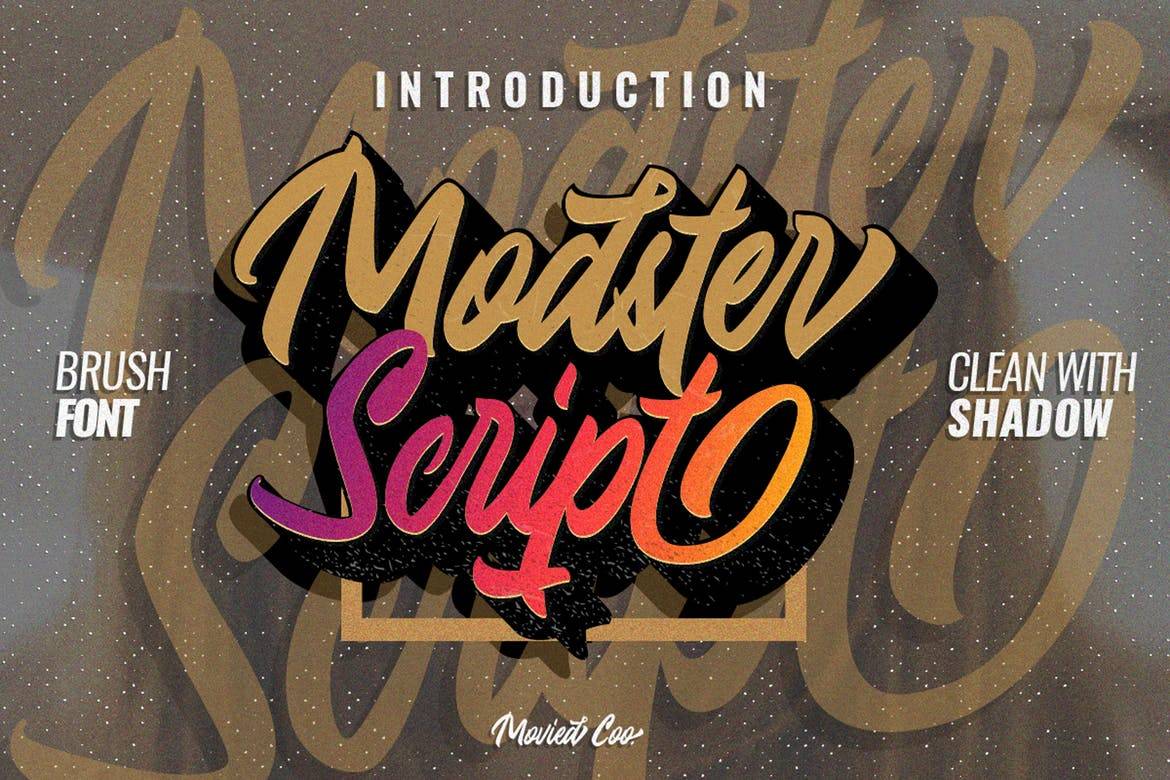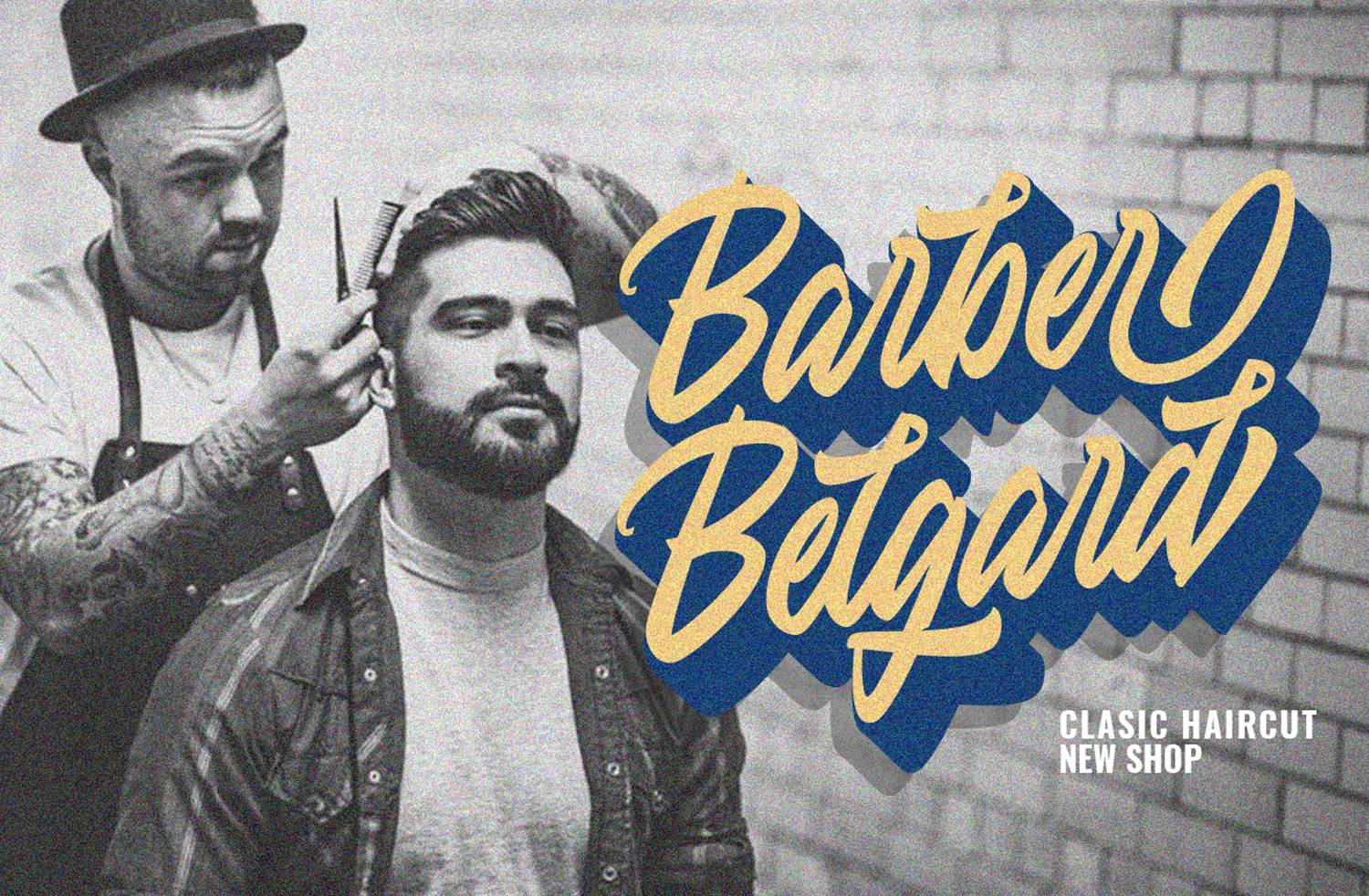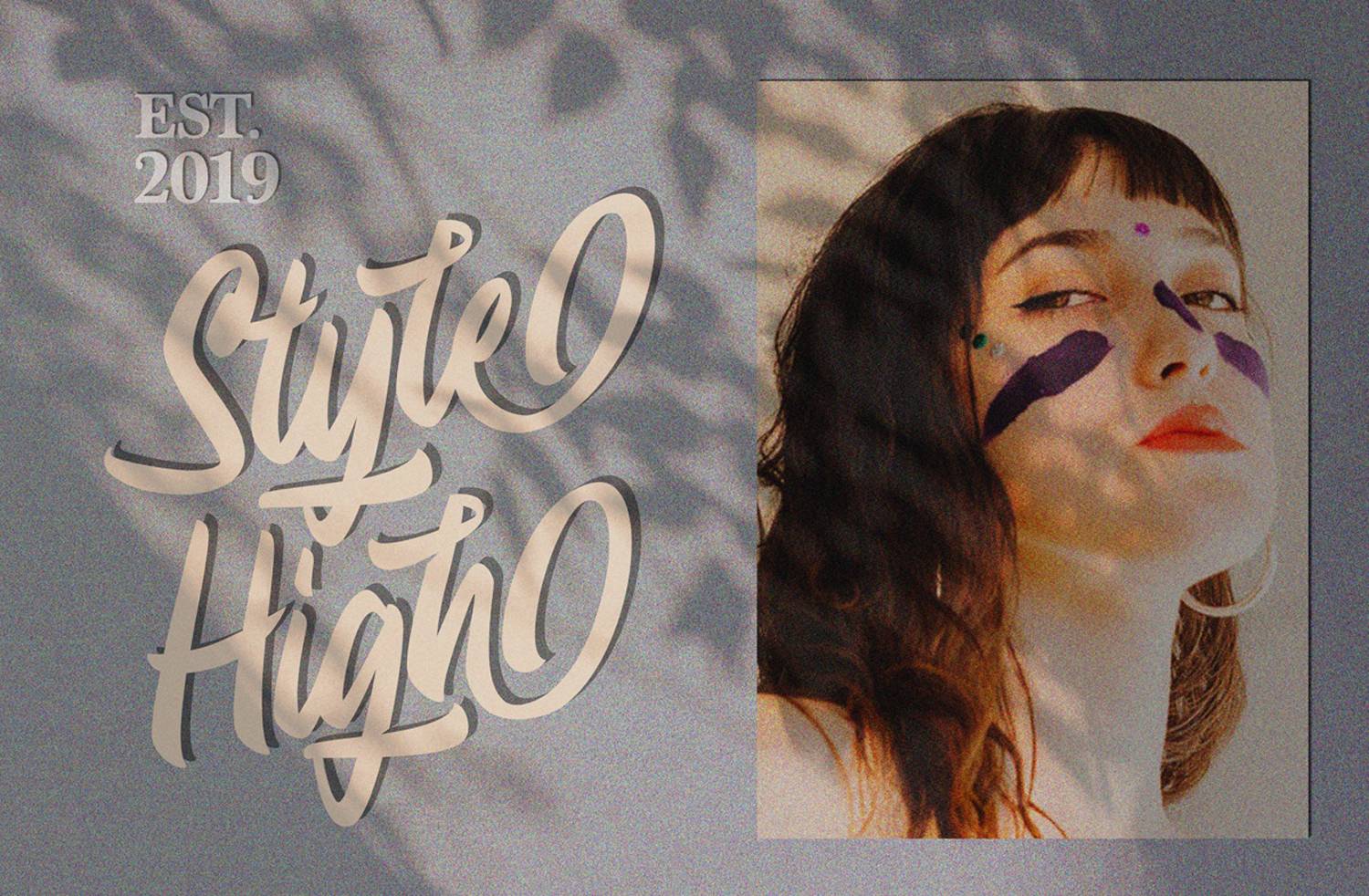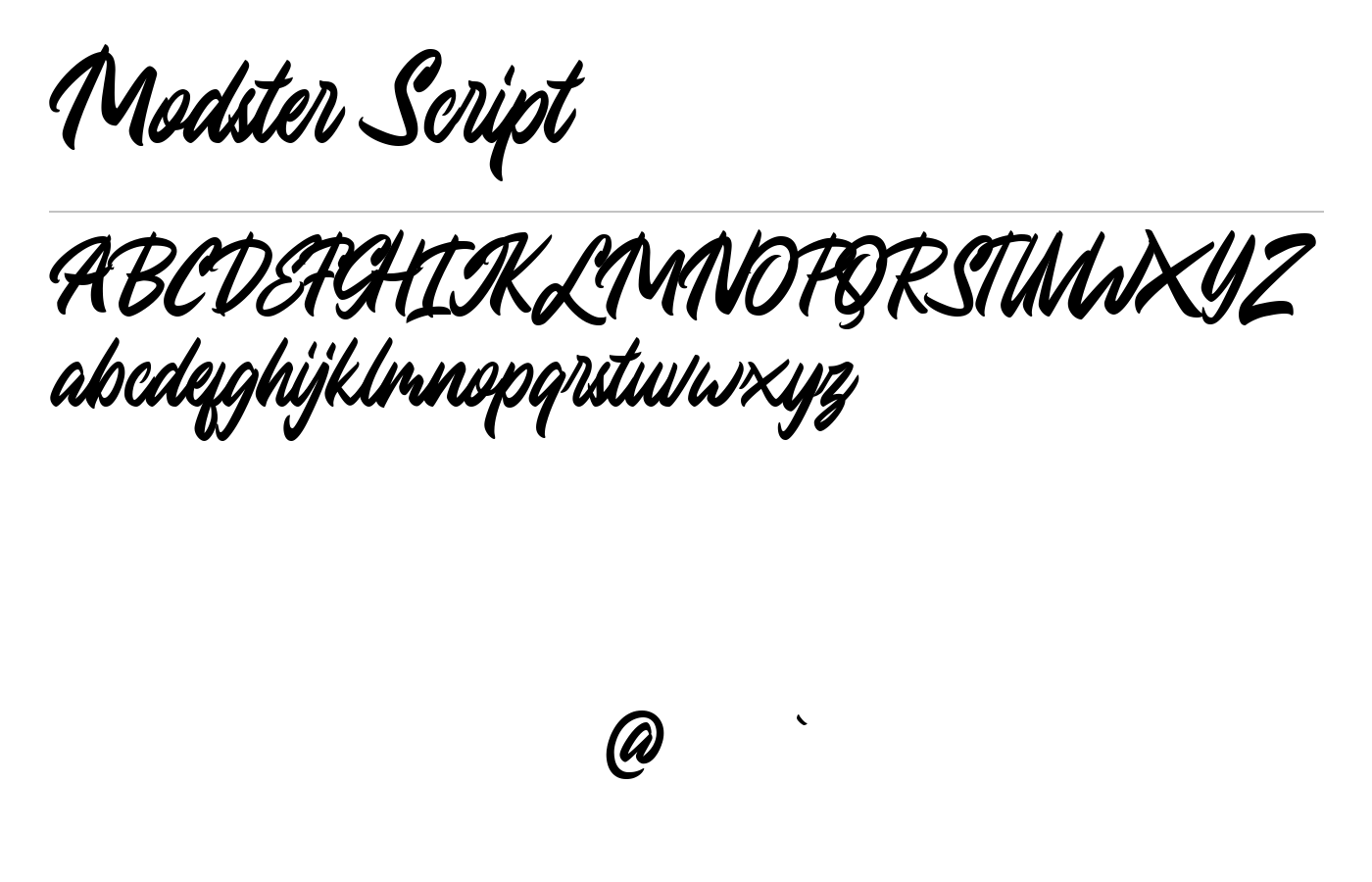
Modster Script Demo is a bold, energetic script font with a casual yet stylish handwritten feel. Its flowing, slightly condensed letterforms with dynamic strokes make it perfect for adding a personal, creative touch to branding, logos, and headlines where a modern, lively vibe is desired. This font works well for projects aiming to feel approachable and expressive, such as fashion branding, invitations, and eye-catching editorial designs.
Modster Script Demo
About Modster Script Demo
| Font family | Modster Script Demo |
| Designer | Rits Boys |